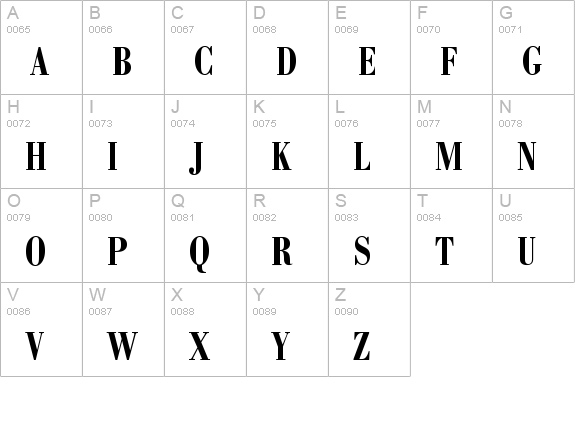
Bodoni Berthold Condensed BQ Medium is a balanced, medium-weight, condensed-width variant in the Bodoni typeface family \xE2\x80\x94 well suited to sub-headlines, navigation, and balanced editorial work.
Bodoni Berthold Condensed BQ Medium font is a sleek and sophisticated typeface that exudes elegance and modernity. Its condensed design makes it perfect for creating impactful headlines and titles that demand attention. The medium weight strikes the perfect balance between boldness and readability, making it versatile for a wide range of design projects. This font is a timeless classic that adds a touch of refinement to any layout or composition. With its sharp serifs and clean lines, Bodoni Berthold Condensed BQ Medium exudes a sense of professionalism and sophistication. Whether used in print or digital designs, this font commands authority and leaves a lasting impression on viewers. The best part? Bodoni Berthold Condensed BQ Medium font is available for free download at FontsMarket.com. Now you can elevate your designs with this premium typeface without breaking the bank. Don't miss out on the opportunity to add this versatile and stylish font to your collection today.